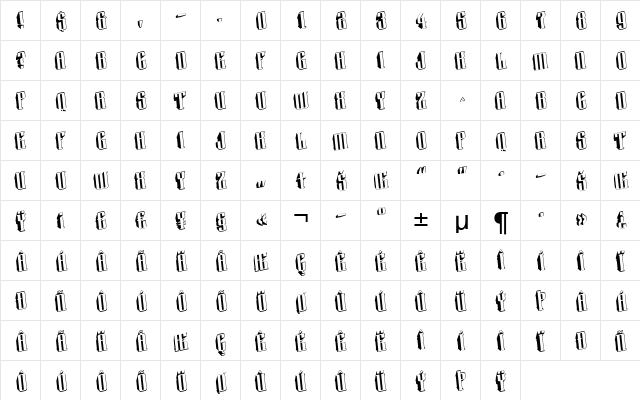
a_Harder3dTwL Regular Font Preview
a_Harder3dTwL Regular
a_Harder3dTwL Regular Font Details
| Designer | W.Chufarofsky & M.Slutsker |
Design Context for a_Harder3dTwL Typeface
a_Harder3dTwL is a composed and adaptable typeface that performs quietly and consistently across a wide range of design contexts.